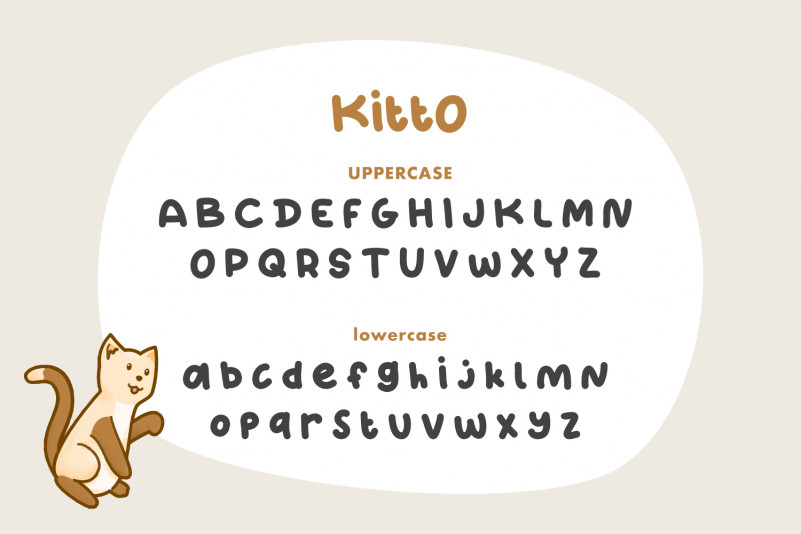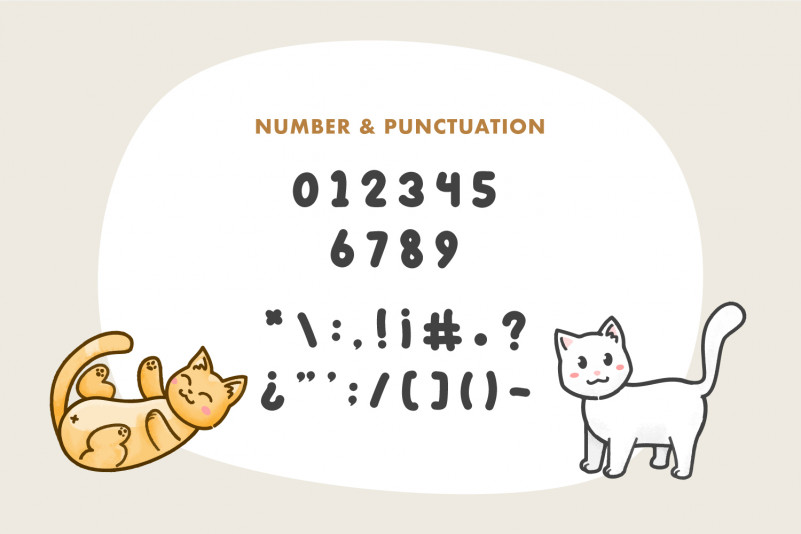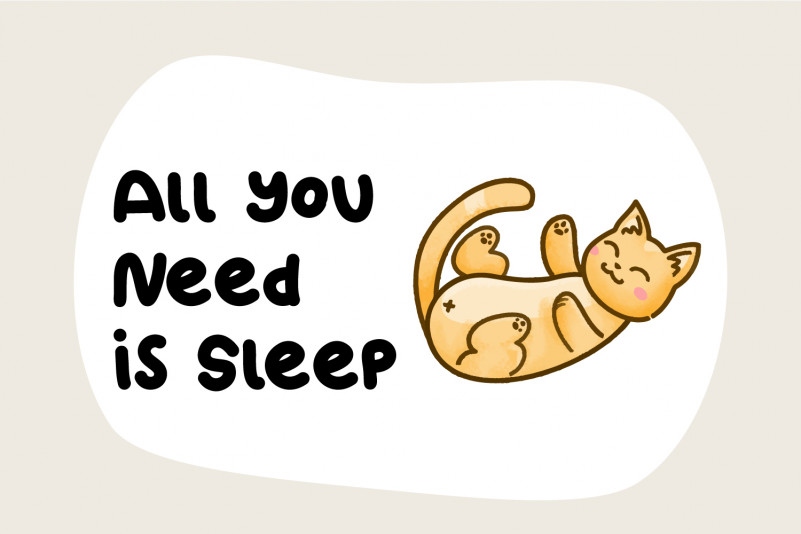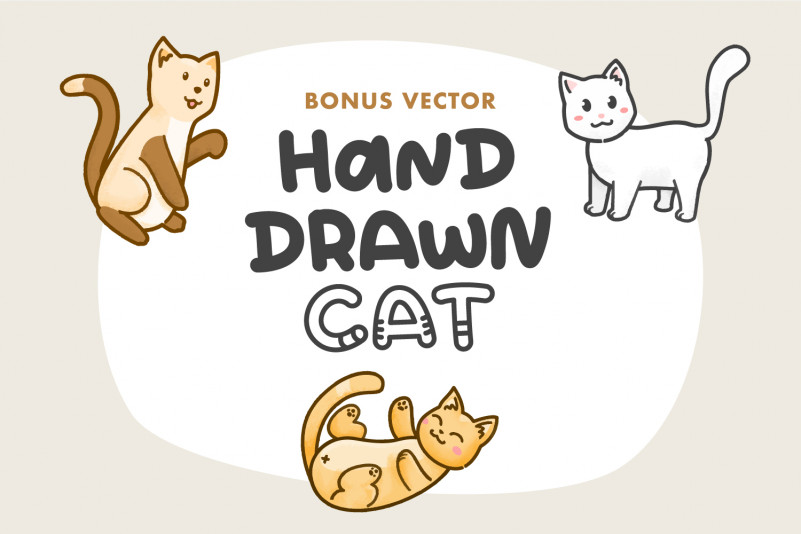
Kitto Regular Font
Kitto Regular Display Font
This is a cute and friendly display font. It embodies playfulness and authenticity and is the perfect choice for any children activity or school project.